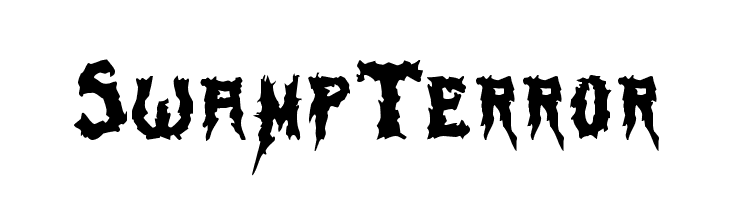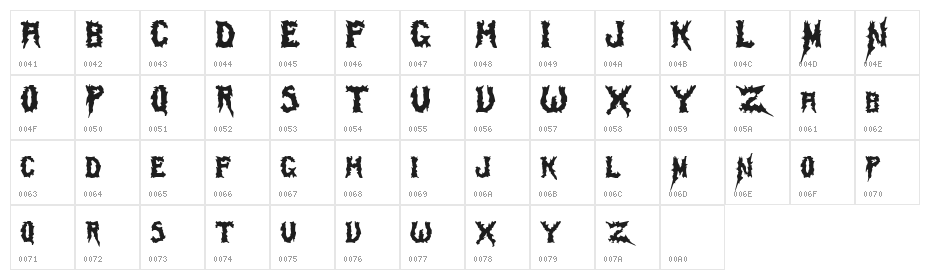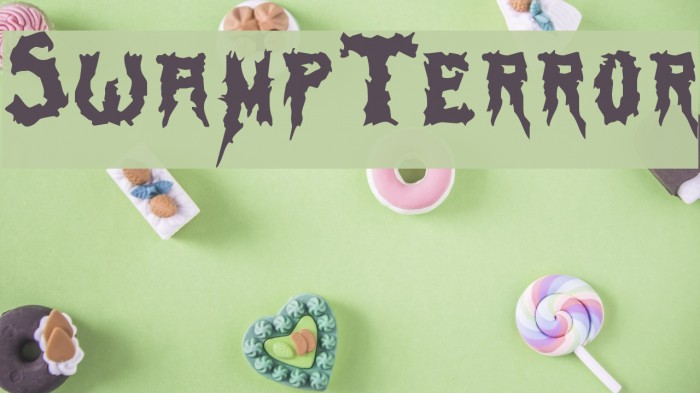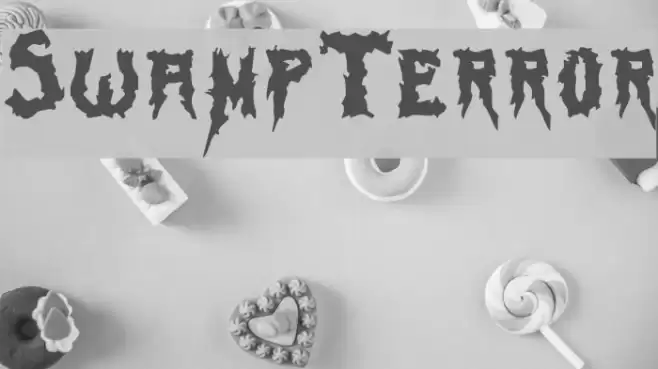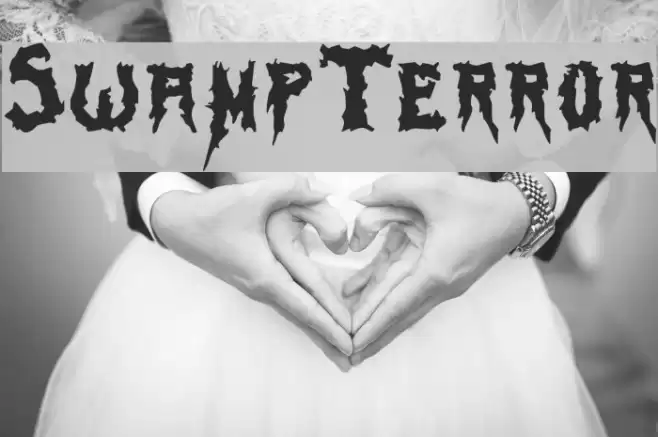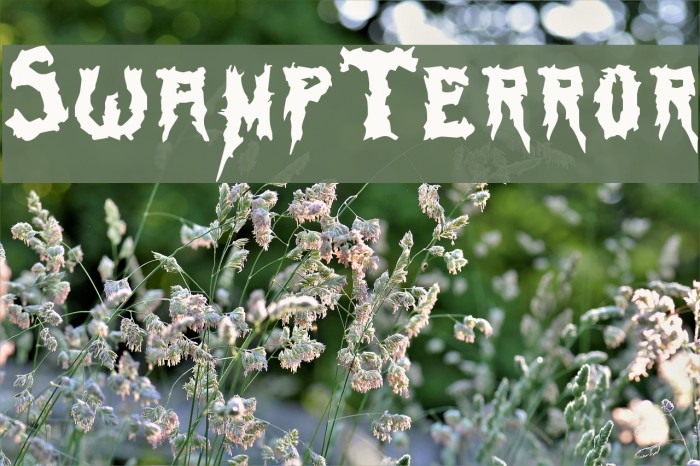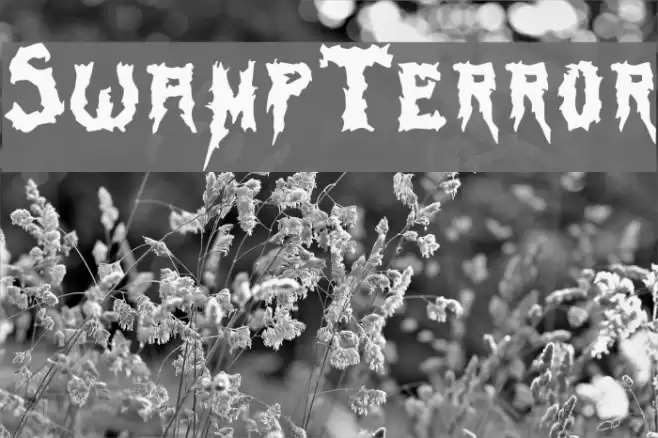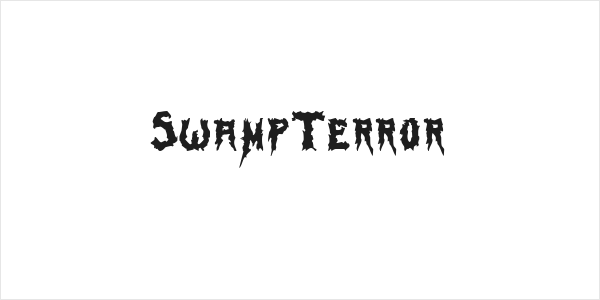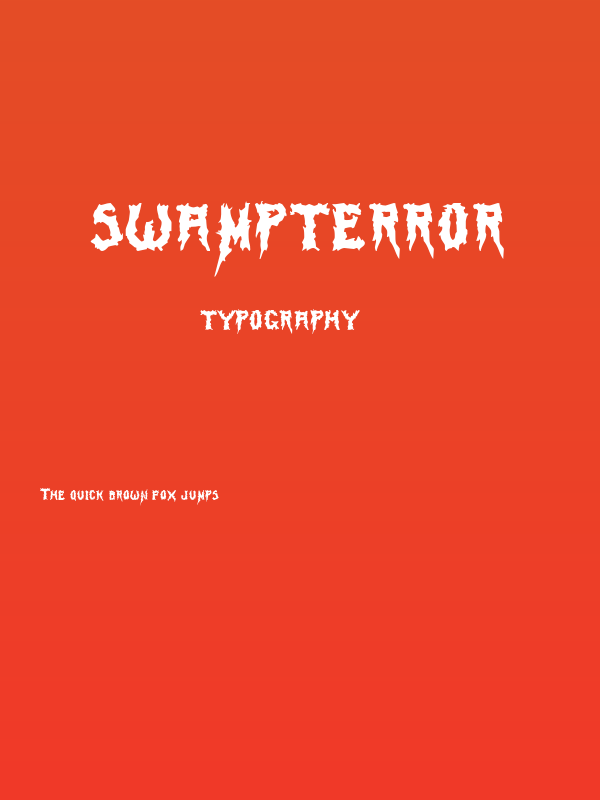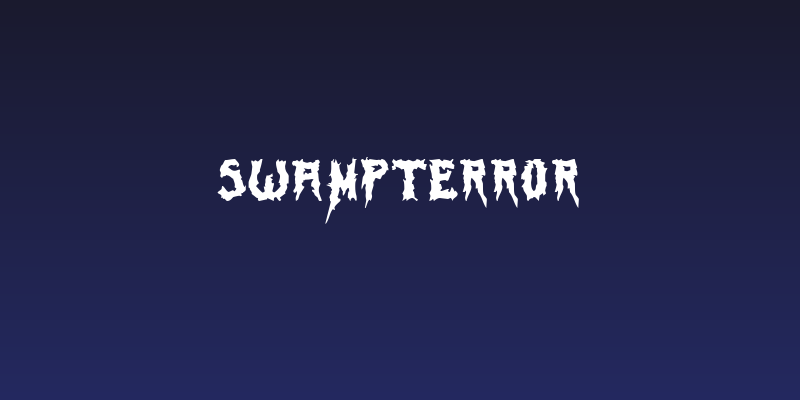
SwampTerror Font
SwampTerror Description
This font features a jagged, thorny design that evokes a sense of horror and mystery. The characters are bold and irregular, with sharp edges and a chaotic appearance that resembles twisted branches or creeping vines. The uppercase and lowercase letters maintain a consistent style, enhancing the eerie and unsettling aesthetic. This font is ideal for creating a spooky atmosphere, making it perfect for Halloween-themed projects or horror movie posters. Its unique style captures attention and conveys a sense of danger and intrigue.